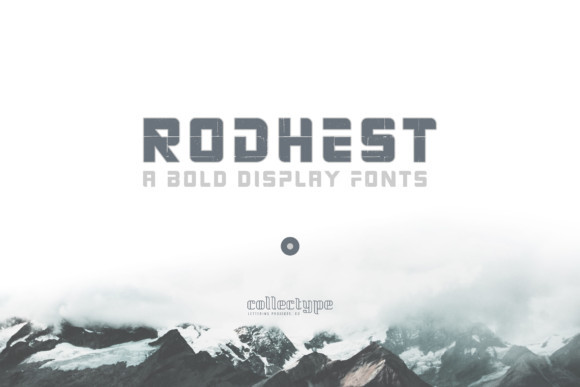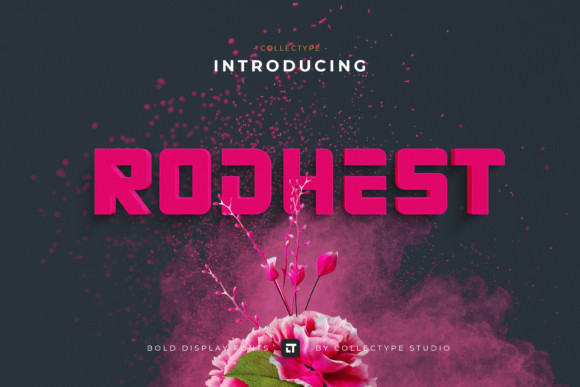
Rodhest Font
Rodhest is a display font with a futuristic look. It will look outstanding in any context, whether it’s being used on busy backgrounds or as a standalone headline!